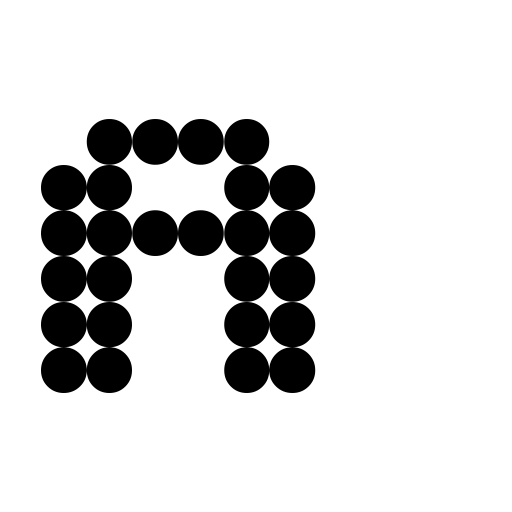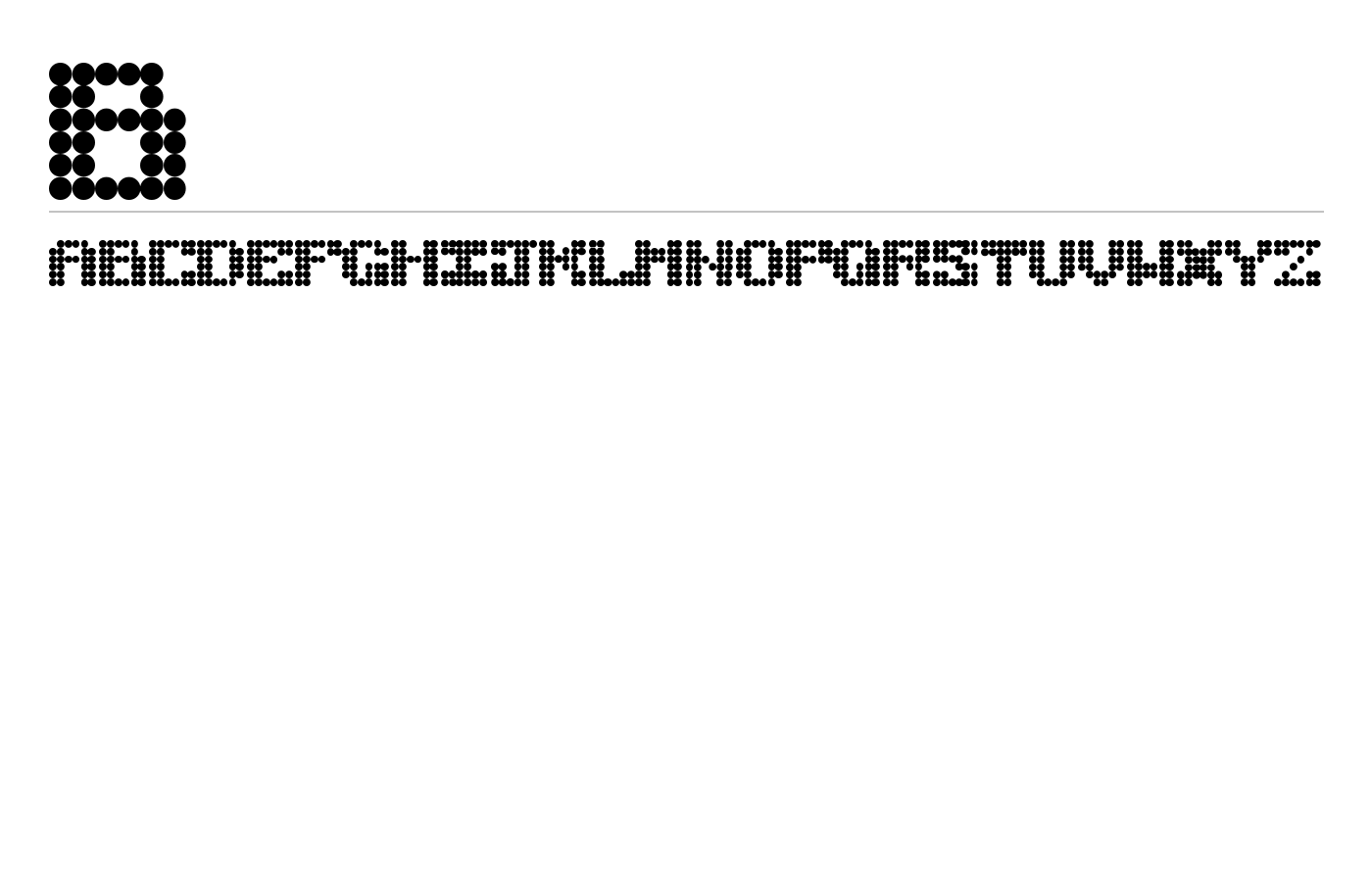
Bokeh Font is a playful and modern sans serif display typeface composed entirely of evenly spaced circular dots. Its unique dotted structure creates a lightweight, airy feel that works well for creative projects, logos, and eye-catching headlines where a futuristic or tech-inspired vibe is desired. This font's unconventional form brings personality and visual intrigue, making it ideal for branding and digital media aiming to stand out with a bold yet minimalist style.
Bokeh Font
About Bokeh Font